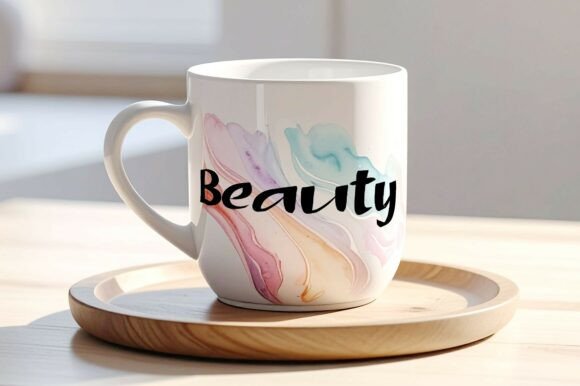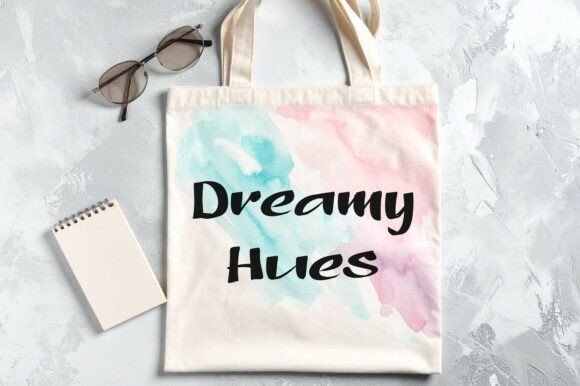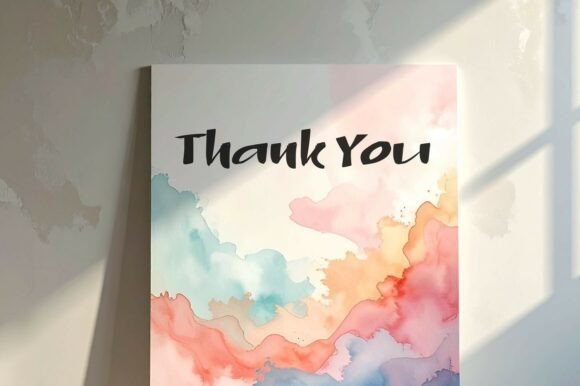
Bekal Font: Elevate Your Designs with a Touch of Cheerful Elegance
In the world of typography, a font can make all the difference in bringing your creative projects to life. If you’re on the hunt for a typeface that exudes a sense of playful sophistication, look no further than the Bekal Font. This modern script font is meticulously designed to infuse your designs with a dash of cheerful elegance, making it an excellent choice for crafters and designers alike.
The Charm of Bekal Font
Bekal Font is characterized by its flowing lines and friendly curves, which capture the essence of handwritten artistry while ensuring excellent legibility. This unique blend of contemporary style and whimsical appeal sets Bekal apart from other fonts, making it an ideal choice for those seeking to add a personal touch to their designs. Whether you’re working on a branding project, crafting a social media graphic, or designing an invitation, Bekal’s smooth connections and natural rhythm make it incredibly versatile.
What Makes Bekal Stand Out?
Bekal’s standout feature is its ability to strike a perfect balance between formality and casualness. It avoids being overly formal or excessively casual, making it appealing to a wide audience. This balance ensures that your designs feel approachable, yet sophisticated. The handcrafted aesthetic of Bekal guarantees that your projects will have an authentic, thoughtfully created feel that resonates with viewers.
Included Features
The Bekal Font package includes a comprehensive set of features that make it a valuable addition to any designer’s toolkit. These features include:
- Standard punctuation glyphs
- Comprehensive set of uppercase and lowercase letters
- Numerals
Bekal Font is an excellent choice for designers and crafters who want to add a touch of personality to their projects. Its unique blend of playfulness and elegance makes it suitable for a wide range of applications, including:
- Invitations and stationery
- Packaging and labels
With Bekal, you can create designs that are not only visually stunning but also engaging and memorable.
Tips for Using Bekal Font
To get the most out of Bekal Font, here are a few tips to keep in mind:
- Experiment with different sizes and colors to find the perfect combination for your design.
- Pair Bekal with complementary fonts to create visual interest and hierarchy.
- Use Bekal’s flowing lines and curves to add a touch of whimsy to your designs.
- Take advantage of Bekal’s extensive character set to create custom designs and artwork.
By following these tips, you can unlock the full potential of Bekal Font and take your designs to the next level.
In conclusion, Bekal Font is a versatile and elegant script font that is perfect for designers and crafters looking to add a touch of cheerful sophistication to their projects. With its unique blend of contemporary style and whimsical appeal, Bekal is sure to become a go-to font in your design toolkit. So why wait? Download Bekal Font today and start creating stunning designs that capture the hearts of your audience.